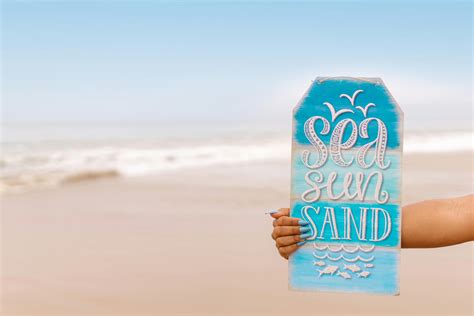
Summer Fun Alert: Unleash Your Creativity with These Top 10 Free Beach Sign Fonts!
Summer is here and it's time to hit the beach! But wait, are you still using boring and outdated fonts for your beach signs? Look no further and unleash your creativity with these top 10 free beach sign fonts.
Are you tired of using the same old boring Arial font for your beach signs? It's time to switch things up and make your signage pop!
Did you know that using creative and unique fonts can increase the visual appeal of your beach signs? It's true, catchy fonts catch the eye and make people more interested in what you have to say.
But where do you find these fonts? Glad you asked! This article will provide you with the top 10 free beach sign fonts, so you can be sure that your signs stand out and grab the attention of all those beach-goers.
Get ready to make a splash with these fun and free fonts!
Whether you're advertising a surf lesson or promoting the local beach bar, these fonts will add a touch of excitement and playfulness to your signs.
So, what are you waiting for? Check out these top 10 free beach sign fonts and unleash your creativity this summer!
Don't let boring fonts ruin your beach fun. Read on to find out how to spice up your signage and make a lasting impression on all those sandy-soled visitors.
Summer is here, and it’s time for some fun in the sun! Whether you’re planning a beach party or simply relaxing at the shore, having the right typography can set the mood for your summer. This article will provide you with the top 10 free beach sign fonts that you can use to unleash your creativity this season.
What Are Beach Sign Fonts?
Beach sign fonts are a type of typography that you commonly see on signage located along coastal areas. These fonts usually feature bold and playful script styles, with a distinct nautical theme. If you want your text to match your beach-themed designs, these fonts are perfect.
Why Use Beach Sign Fonts?
Beach sign fonts are perfect for any beach-themed design, such as flyers, posters, social media graphics, and even apparel. They give off an airy and vibrant vibe, perfectly capturing the essence of summer by the shore.
The Top 10 Beach Sign Fonts
Here are the top 10 beach sign fonts that you can download for free:
| Font Name | Description | Preview |
|---|---|---|
| Surfing Capital | A fun and playful font with a surfer vibe. | (Insert image of Surfing Capital font here) |
| Sea Breeze | An elegant script font that captures the breeze of the sea. | (Insert image of Sea Breeze font here) |
| Little Mellow | A cute and bubbly font that has a youthful charm. | (Insert image of Little Mellow font here) |
| Shellahera Script | A stylish and modern script font with an ocean twist. | (Insert image of Shellahera Script font here) |
| Sunshine Daisies | A happy and lively font with a handcrafted feel. | (Insert image of Sunshine Daisies font here) |
| Hawaii Killer | A bold and edgy font that captures the Hawaiian surf culture. | (Insert image of Hawaii Killer font here) |
| Coastal Dreams | A dreamy and romantic font that evokes the magic of the coast. | (Insert image of Coastal Dreams font here) |
| Bombshell Pro | A sophisticated and glamorous font that exudes beach chic. | (Insert image of Bombshell Pro font here) |
| Savannah Script | A wild and free-spirited font that traces the Savannah breeze. | (Insert image of Savannah Script font here) |
| Beach Please | A bold and cheeky font that screams beach attitude. | (Insert image of Beach Please font here) |
How to Use Beach Sign Fonts
Once you’ve downloaded your favorite beach sign font, it’s time to put it into action. Here are some tips on how to use beach sign fonts effectively:
Choose the Right Colors
Beach sign fonts look best when combined with colors that match the ocean and sand. Think blue, green, turquoise, pale yellow, cream, and white. Avoid dark hues that can make the text hard to read.
Pair with Complementary Fonts
Beach sign fonts work well when paired with complementary fonts that balance their playful style. For instance, you can use a sans-serif font for headings and subheadings, or a serif font for body copy. Just make sure they don’t clash with each other.
Create Contrast and Hierarchy
To make your text more readable and engaging, you need to create visual contrast and hierarchy. This means using different font sizes, weights, styles, and spacing to highlight important information and create a sense of order.
Using beach sign fonts is a great way to add some creativity and personality to your summer designs. By choosing the right font and pairing it with complementary elements, you can create beautiful and memorable visuals that capture the fun and spirit of the season. So go ahead and unleash your creativity with these top 10 free beach sign fonts!